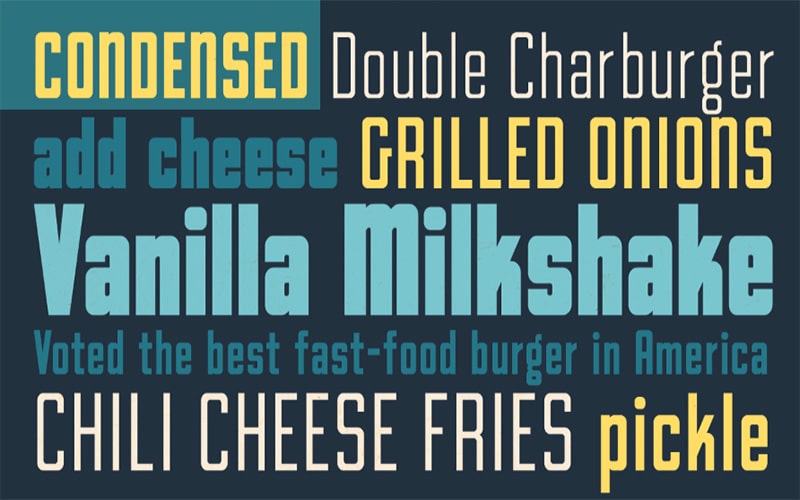
Goodland Font is a great basic display and sans-serif typeface. With simple, capital, and bold characters, it presents a frontline and magnificent appearance.
John Roshell created this font, which was released by Swell Type. The subfamily is regular and contains 49 styles including “Goodland Compressed Light”,” Goodland Compressed Bold”,” Goodland Compressed Italic”, and much more.
This high-quality typeface helps to make your designs look more professional. It is ideal for a variety of gorgeous text creations because of its fashionable appearance.
This amazing font supports different languages like Afrikaans, Basque, Breton, Catalan, Danish, Dutch, English, Finnish, French, Gaelic, German, Icelandic, Indonesian, Irish, Italian, Norwegian, Portuguese, Spanish, Swahili, and Swedish.
Goodland Font
| Font Designer: | John Roshell |